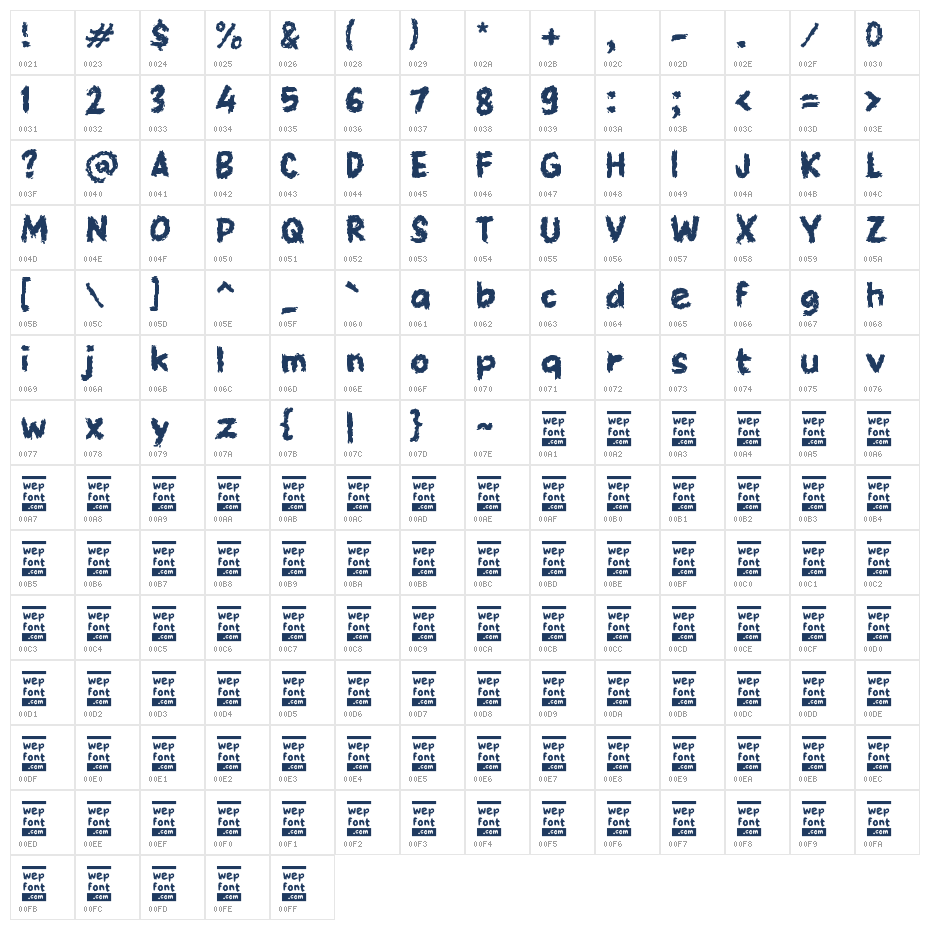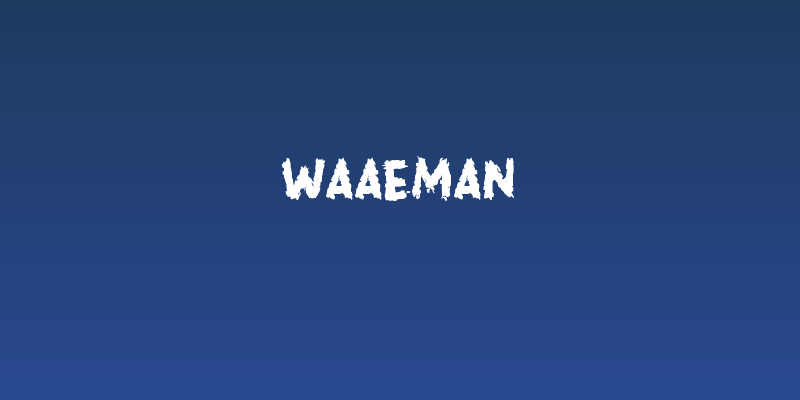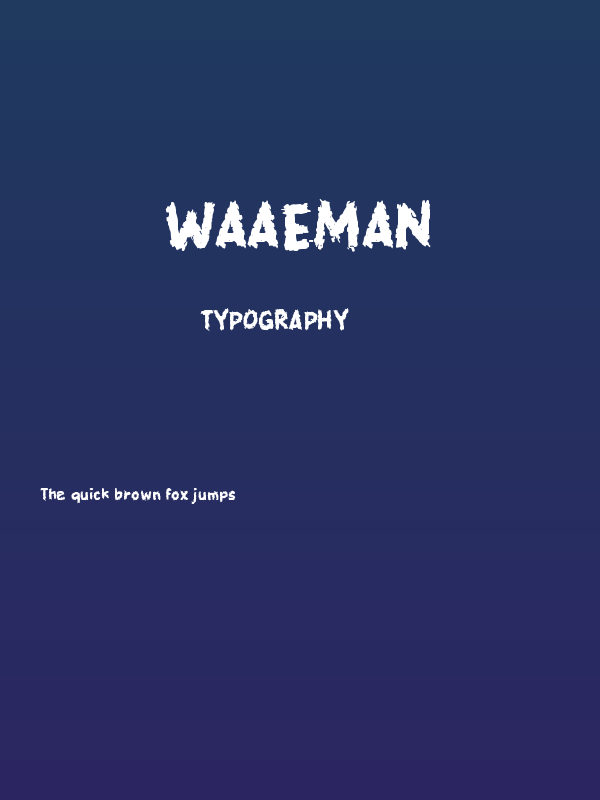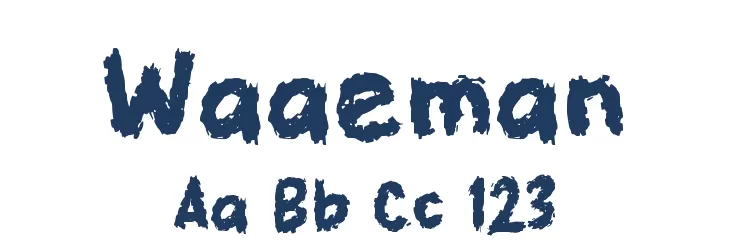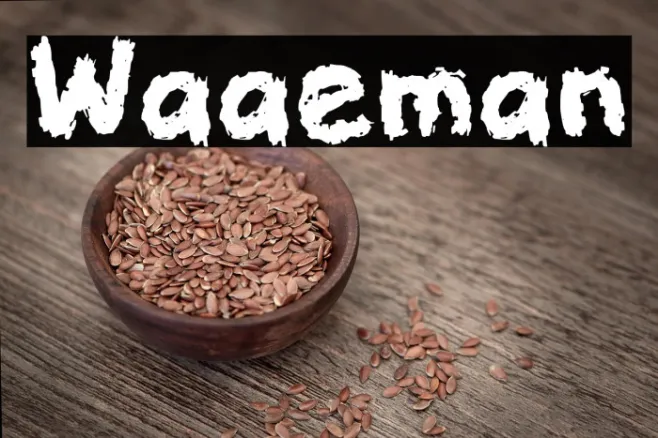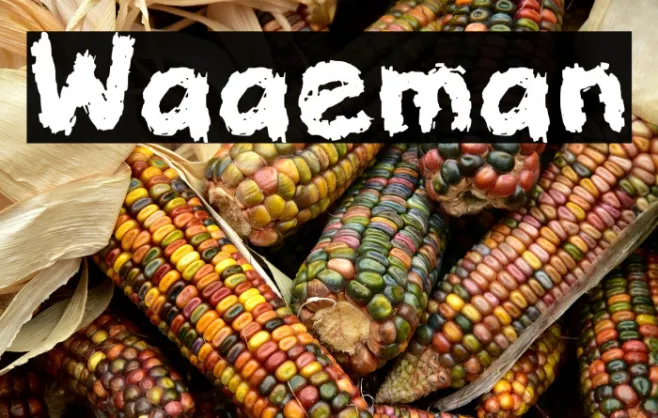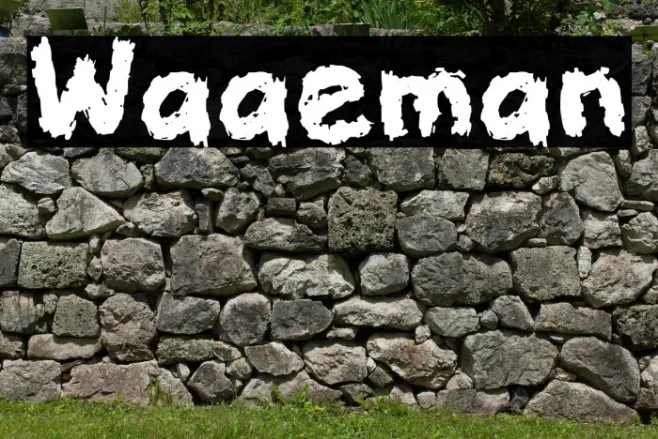
Waaeman Font
Waaeman Description
A bold, textured, brushstroke style font with a rough, hand-painted appearance.
| Overall Style | Casual, Artistic, Hand-painted |
| Use Case | Headlines, Posters, Creative branding |